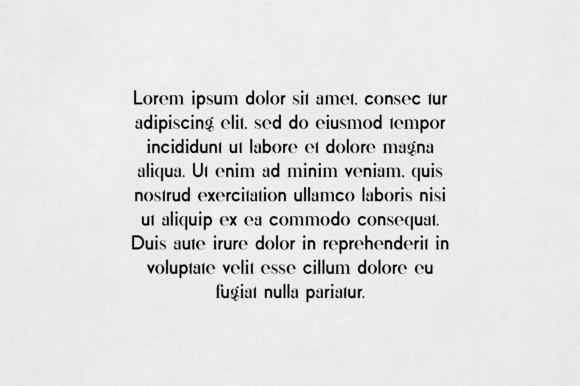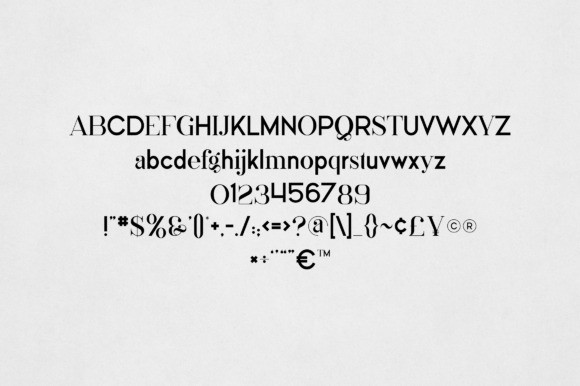
Ashlyn Font
Ashlyn Font is an elegant and versatile font that will make your typography truly unique! It will enchant every logo, branding, headline, or plain text!